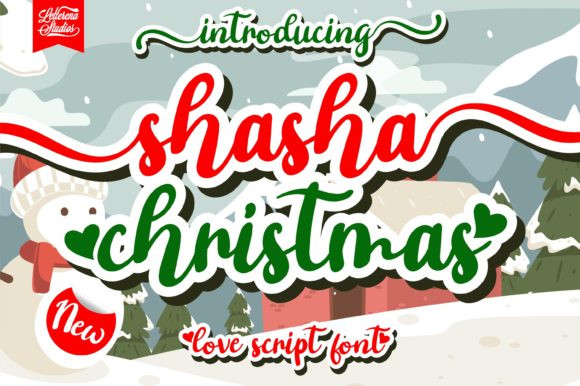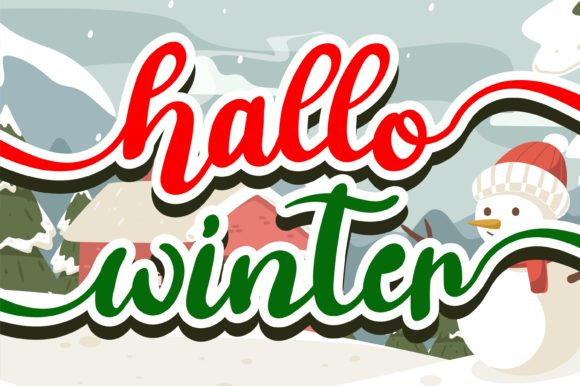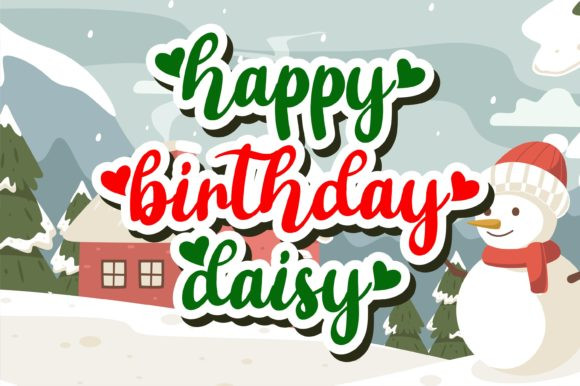
Shasha Christmas Font
Shasha Christmas is a delicate and elegant handwritten font. Its distinct and well rounded letters make this font a masterpiece. It is ideal for holiday-themed greeting cards and for any crafting project that requires a romantic touch. This font is PUA encoded which means you can access all of the glyphs and swashes with ease!https://www.creativefabrica.com/product/shasha-christmas/